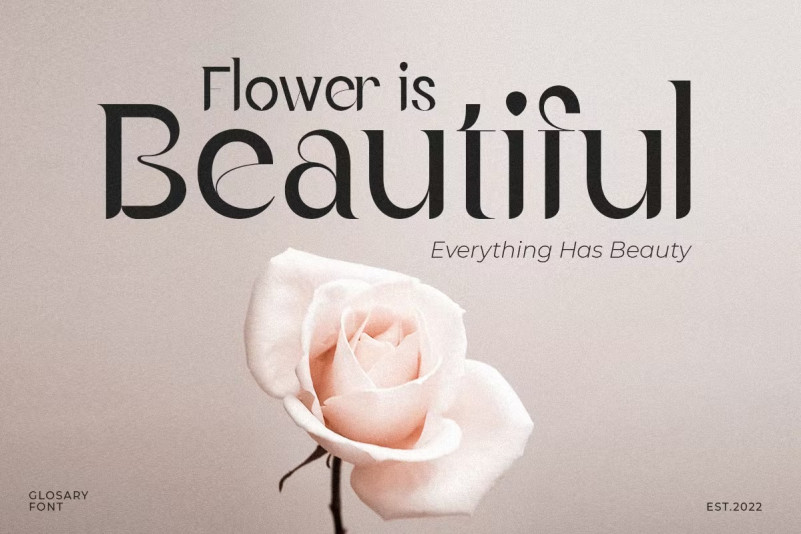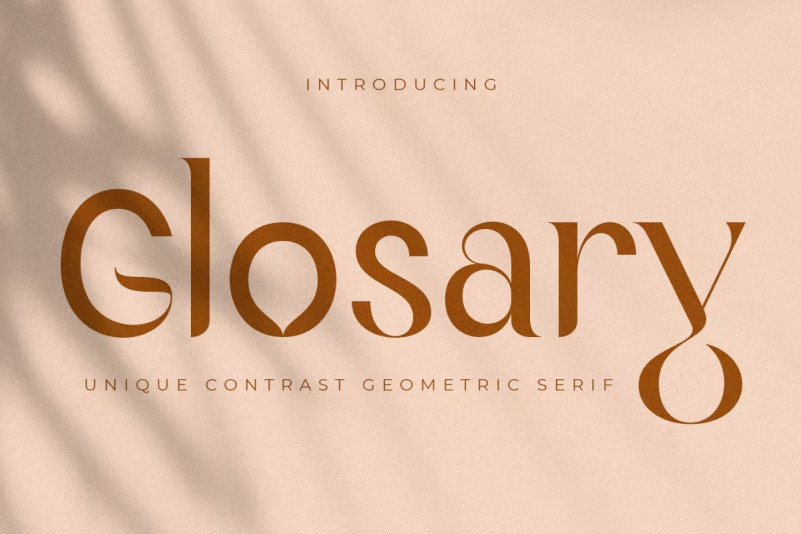
Glosary Font
New Unique font that we created special for modern projects with extra ligature in unique shape will be ready to add value of your brand. It so nice to leverage designer or product owner that need solutions to make their design look more elegant and luxury. And specially for Glosary font, We prepared any ligatures characters to help you create unlimited variations for your creative needs.